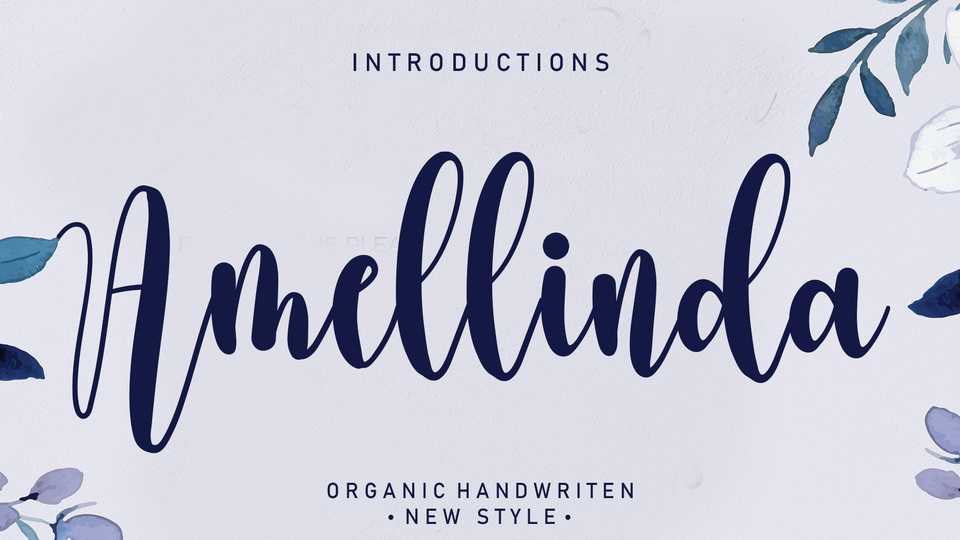
Download Amellinda font, a lovely script typeface featuring charming, playful characters that seem to dance along the baseline. Amellinda font is perfect for your creative ideas, both formal and informal.